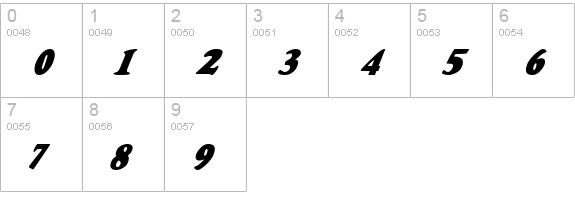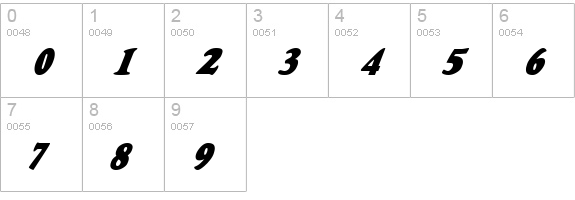
OswaldGrey Italic Font Details
OswaldGrey Italic is a distinctive, italic variant in the OswaldGrey typeface family \xE2\x80\x94 well suited to design and typography projects.
OswaldGrey Italic font is a sleek and modern typeface that exudes sophistication and elegance. Its italicized style adds a touch of flair and grace to any design project. The delicate curves and sharp angles of the letterforms create a unique and eye-catching look that is perfect for conveying a sense of professionalism and refinement. This versatile font is ideal for a wide range of applications, from branding and advertising to editorial design and web graphics. Whether you're crafting a logo, designing a brochure, or creating social media posts, OswaldGrey Italic font will elevate your work and make a lasting impression. Best of all, OswaldGrey Italic font is available for free download at FontsMarket.com. This means you can easily access this high-quality font without breaking the bank. Don't miss out on the opportunity to enhance your designs with the elegance and style of OswaldGrey Italic font. Download it today and take your projects to the next level!